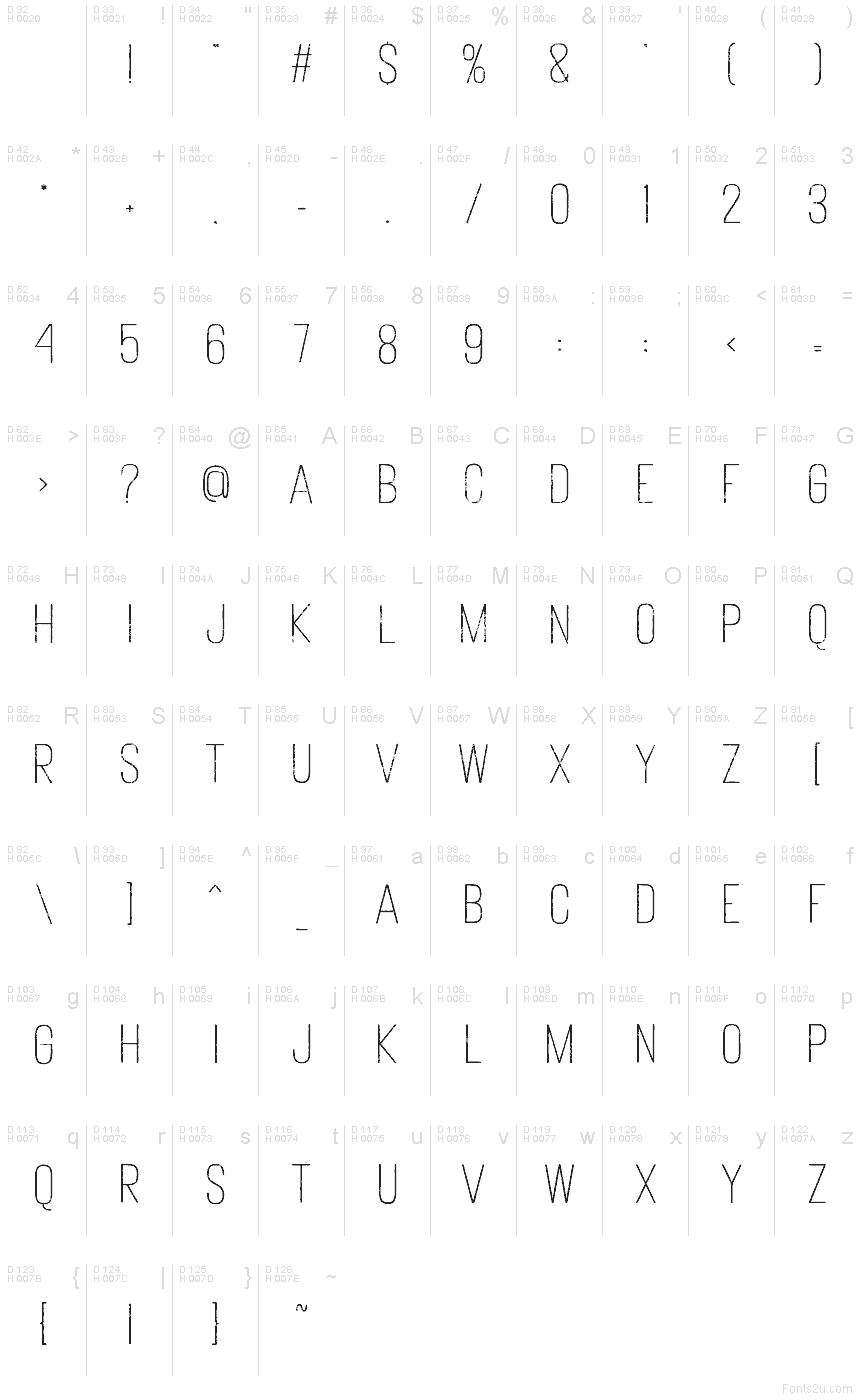
Votrag Texture Thin
Votrag Texture Thin font by PutraCetol Studio combines a condensed and eroded sans serif engineering to produce a grunge typeface. The font is minimalist with a slight industrial texture and emphasis which are mostly shown on the letter edges. The characters have an irregular but balanced look as some strokes seem to faint away while others have a more solid build.
Use Votrag in your artsy ideas for book covers, packaging, apparel designs, logos, labels for food products, film titles, branding works, posters or flyers etc.. Enjoy this amazing resource in your free projects along other amazing typefaces from the complete Votrag family.